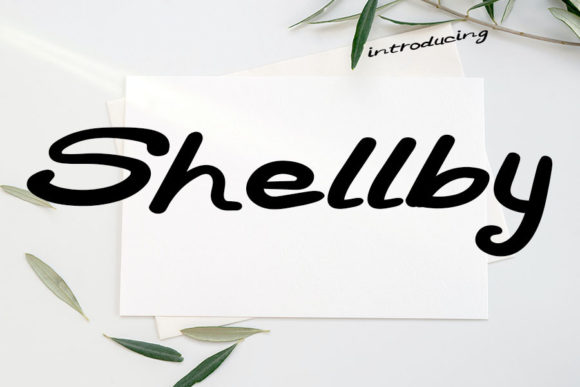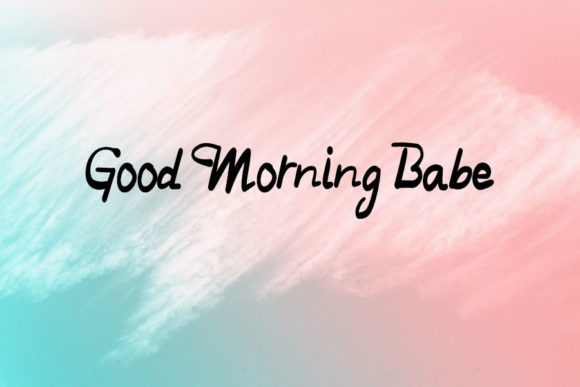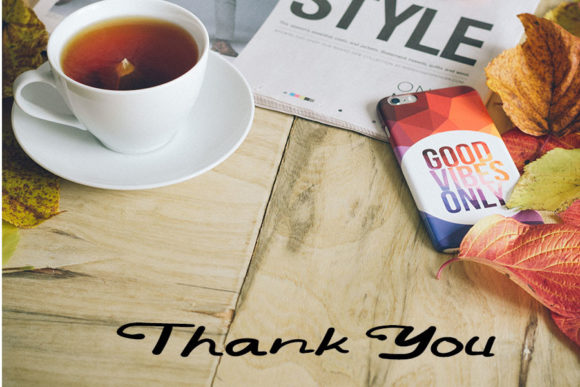
About Shellby Font
Shellby is an incredibly unique script font. Masterfully designed to become a true favorite, this font has the potential to bring each of your creative ideas to the highest level!